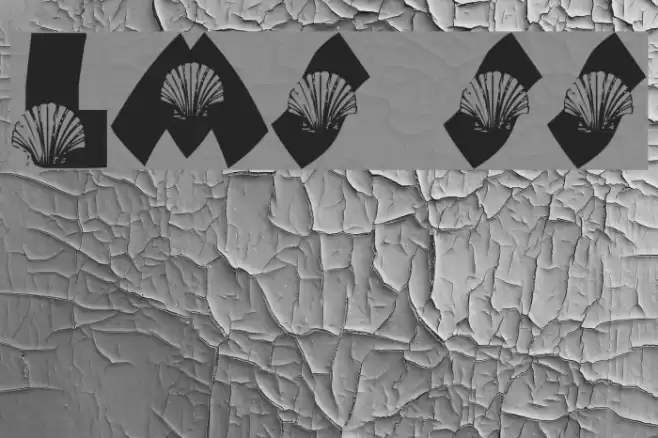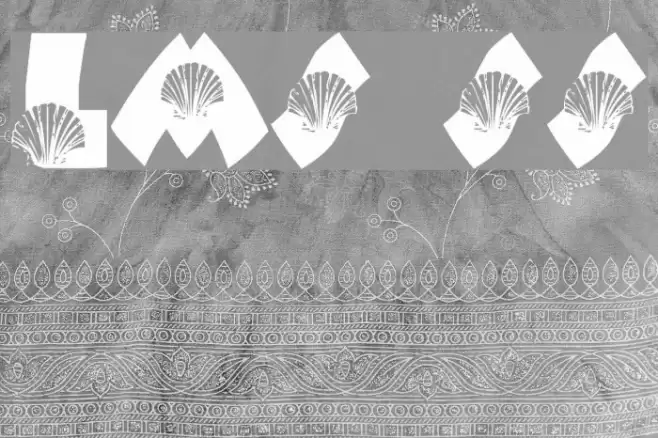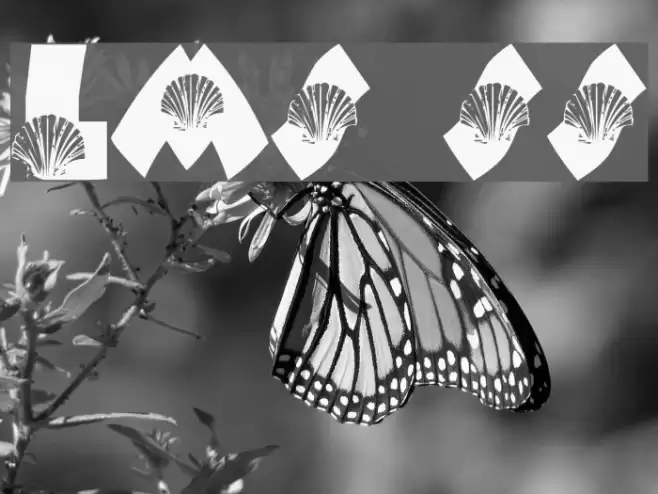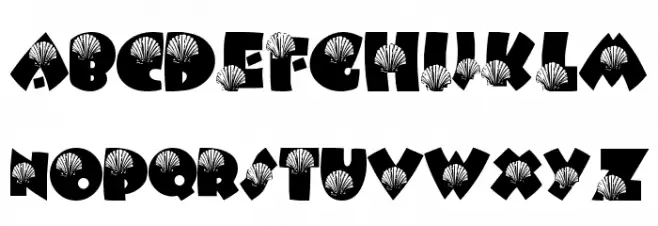
LMS She-Shells Font
LMS She-Shells Description
This font features a playful and decorative style, incorporating seashell motifs into the design of each letter. The characters are bold and blocky, with each letter containing a detailed shell illustration, adding a unique and whimsical touch. The font is highly decorative, making it ideal for projects that require a fun and thematic aesthetic. The uppercase letters are consistent in their use of the shell motif, creating a cohesive look across the alphabet. This font is perfect for beach-themed designs, children's projects, or any creative work that benefits from a touch of seaside charm.
A decorative font with seashell motifs integrated into bold, blocky letters from Uncategorized fonts.
- Proposed Projects: Ideal for beach-themed designs, children's books, party invitations, and creative branding projects.
- Use Case: Headlines, Logos, Themed Invitations